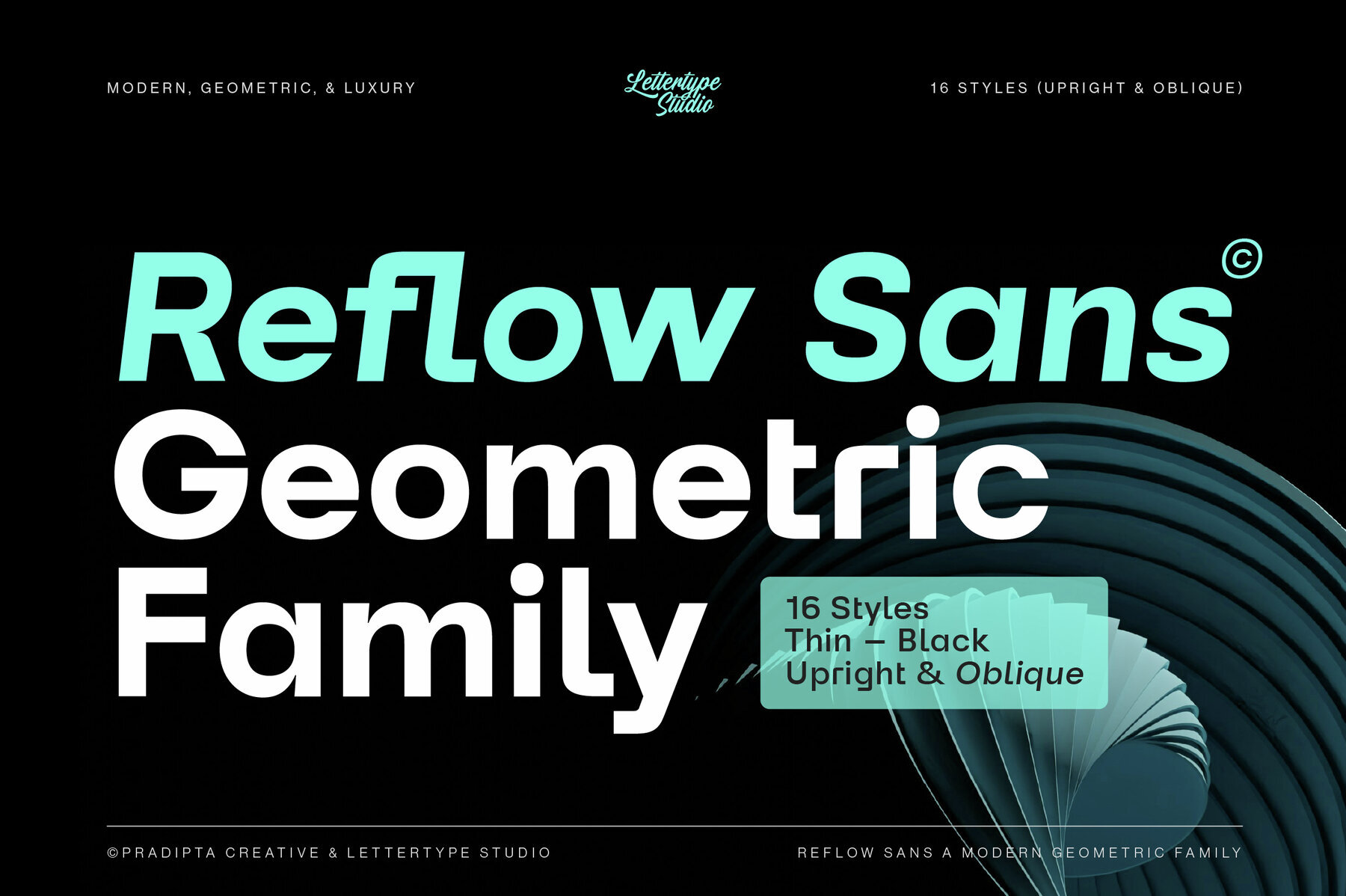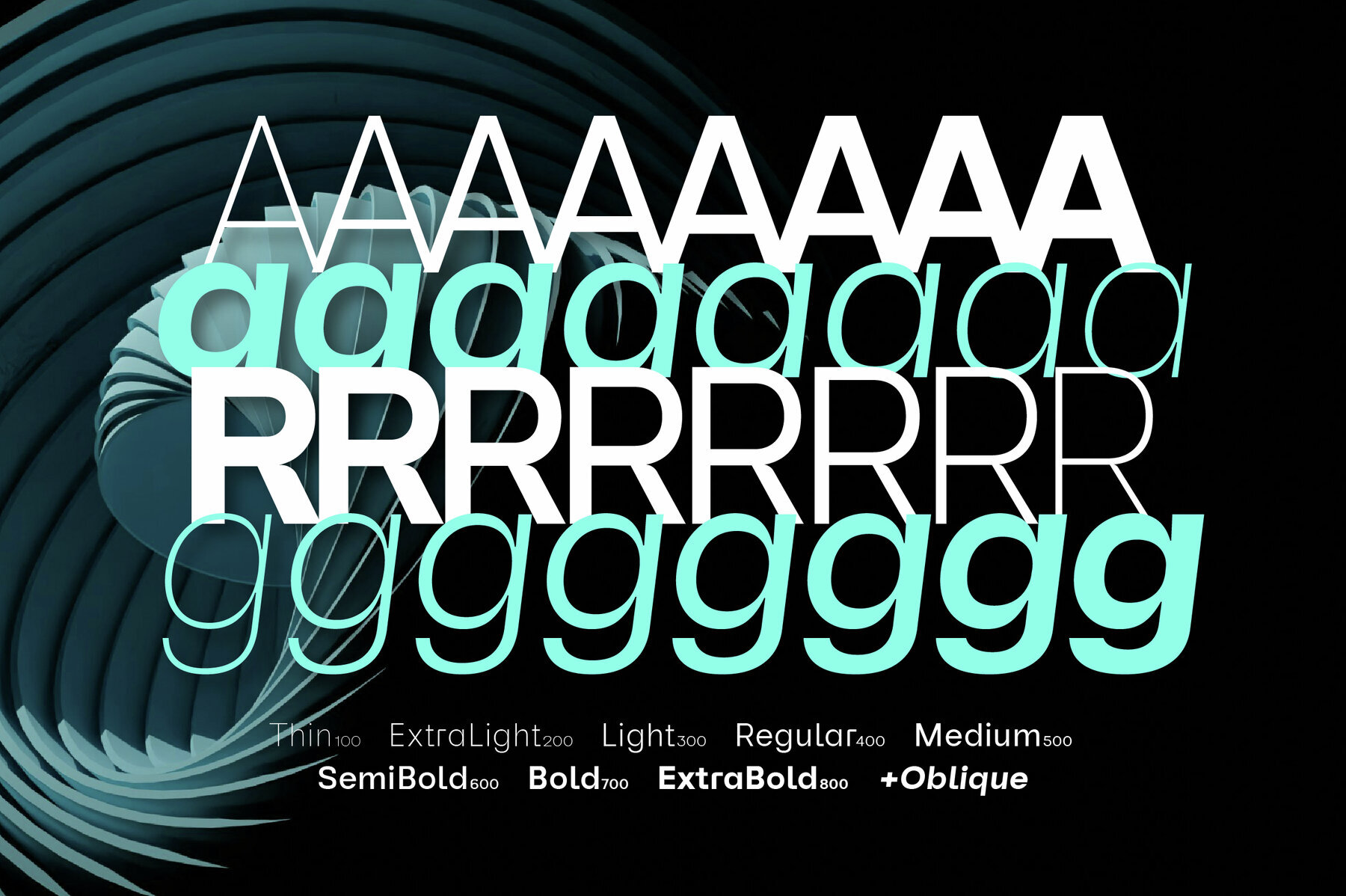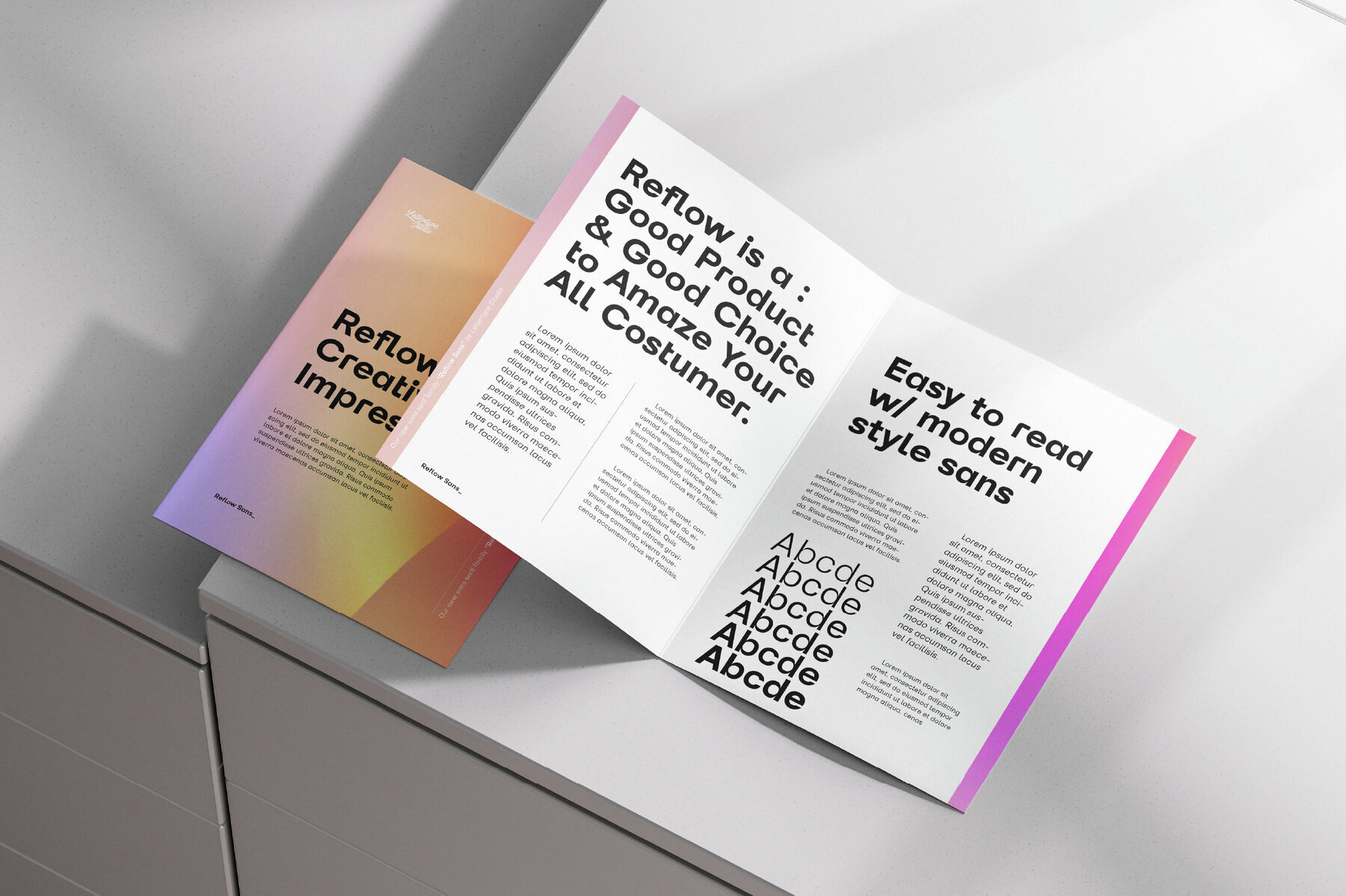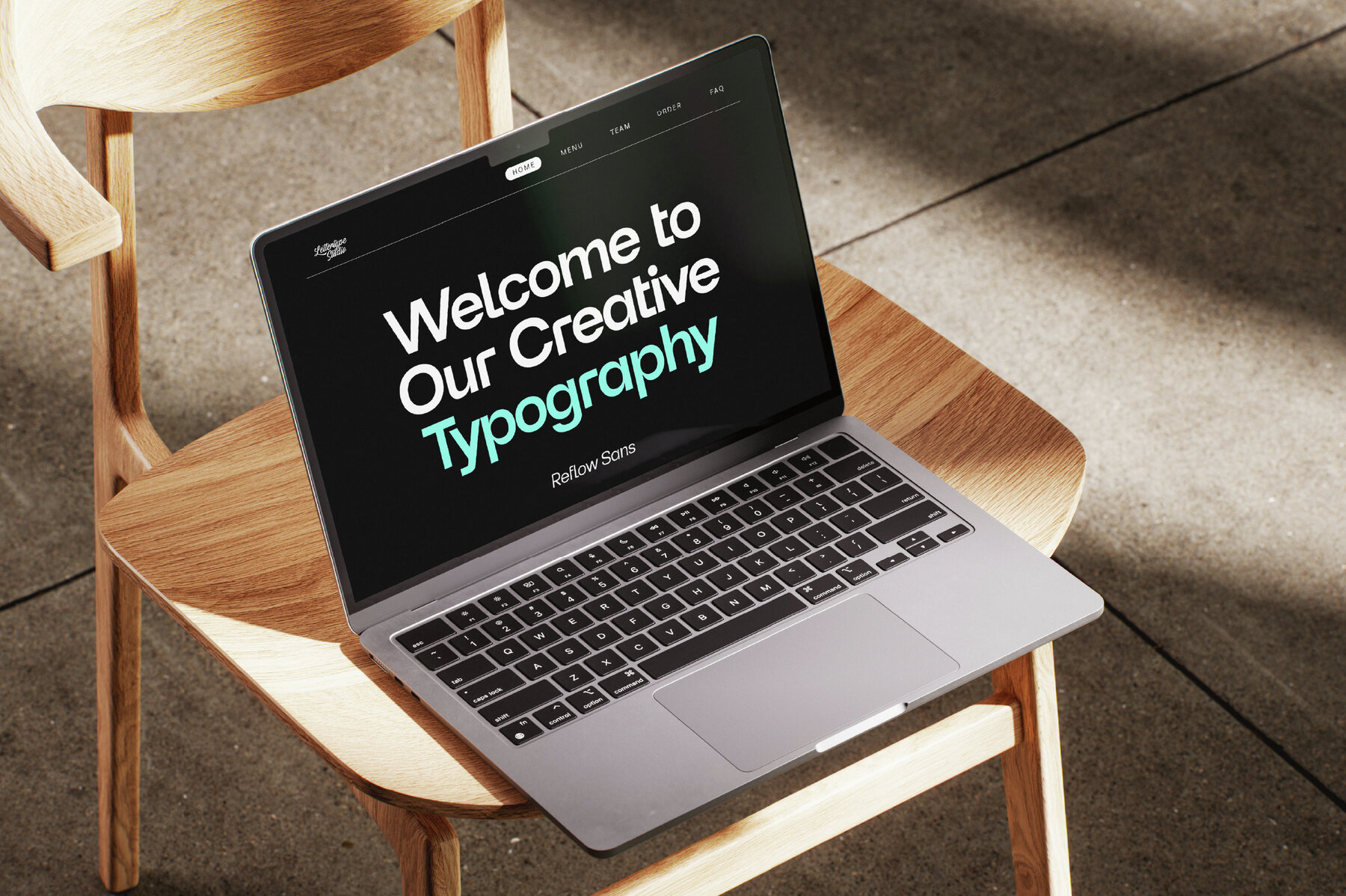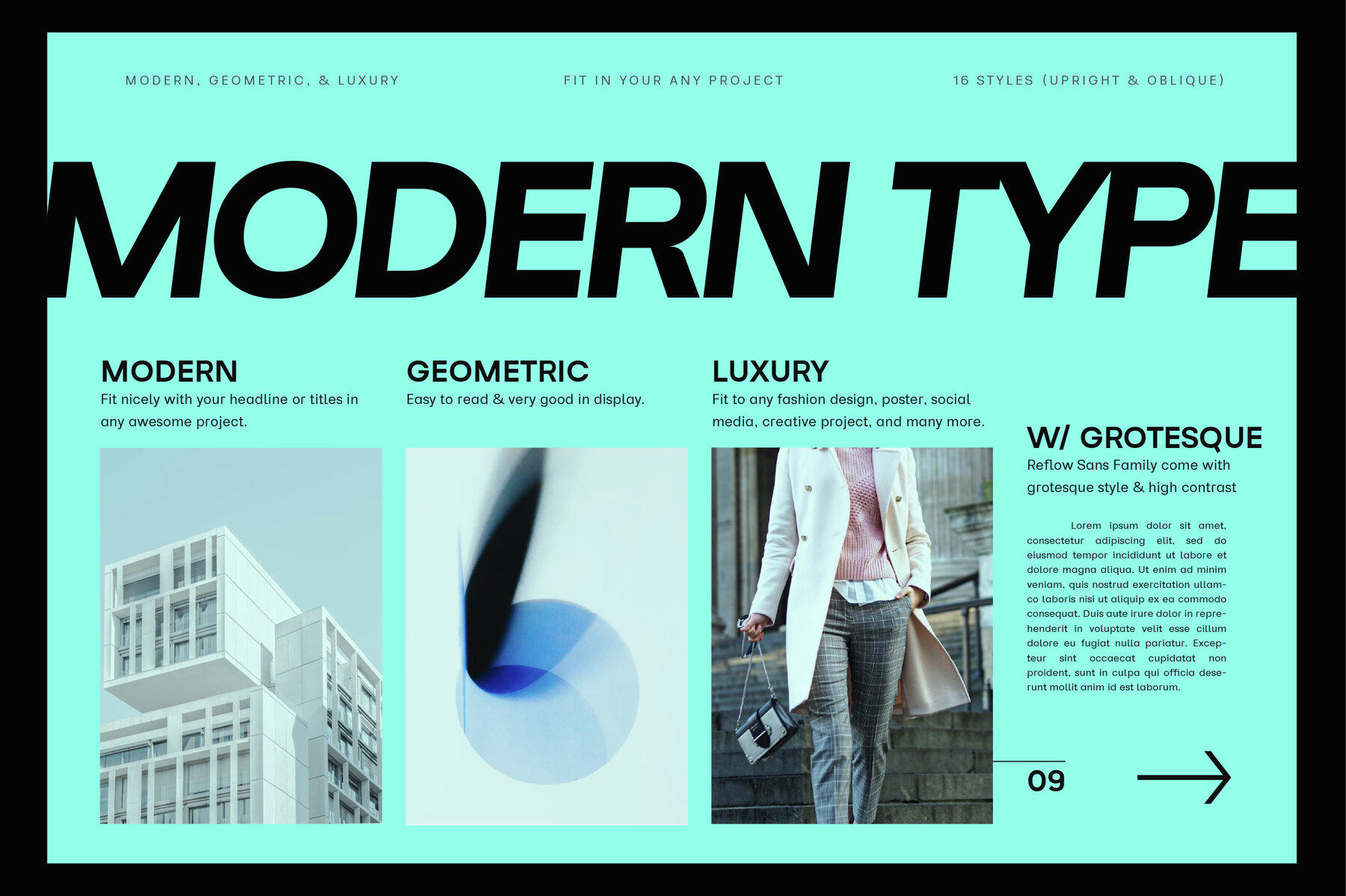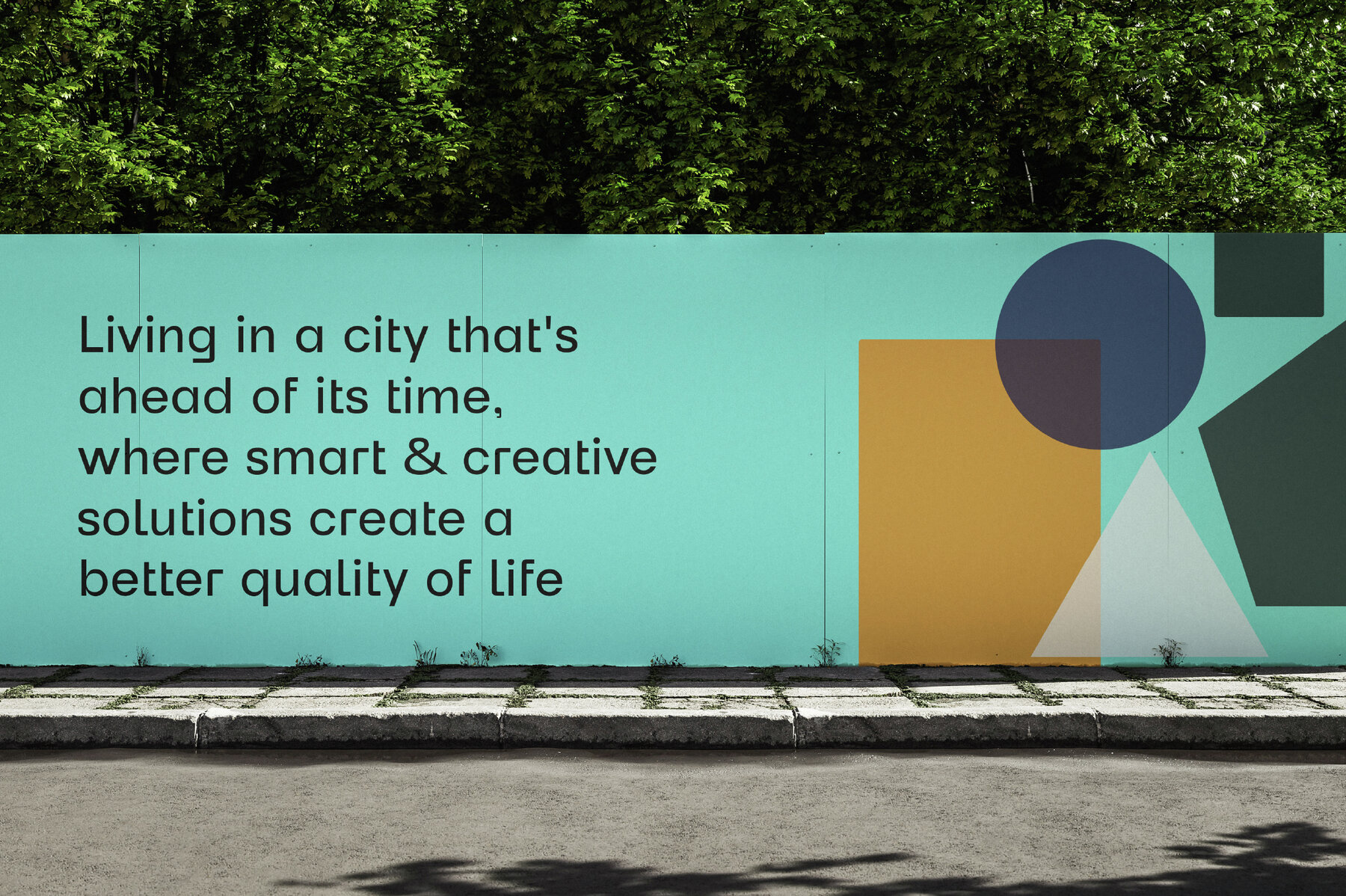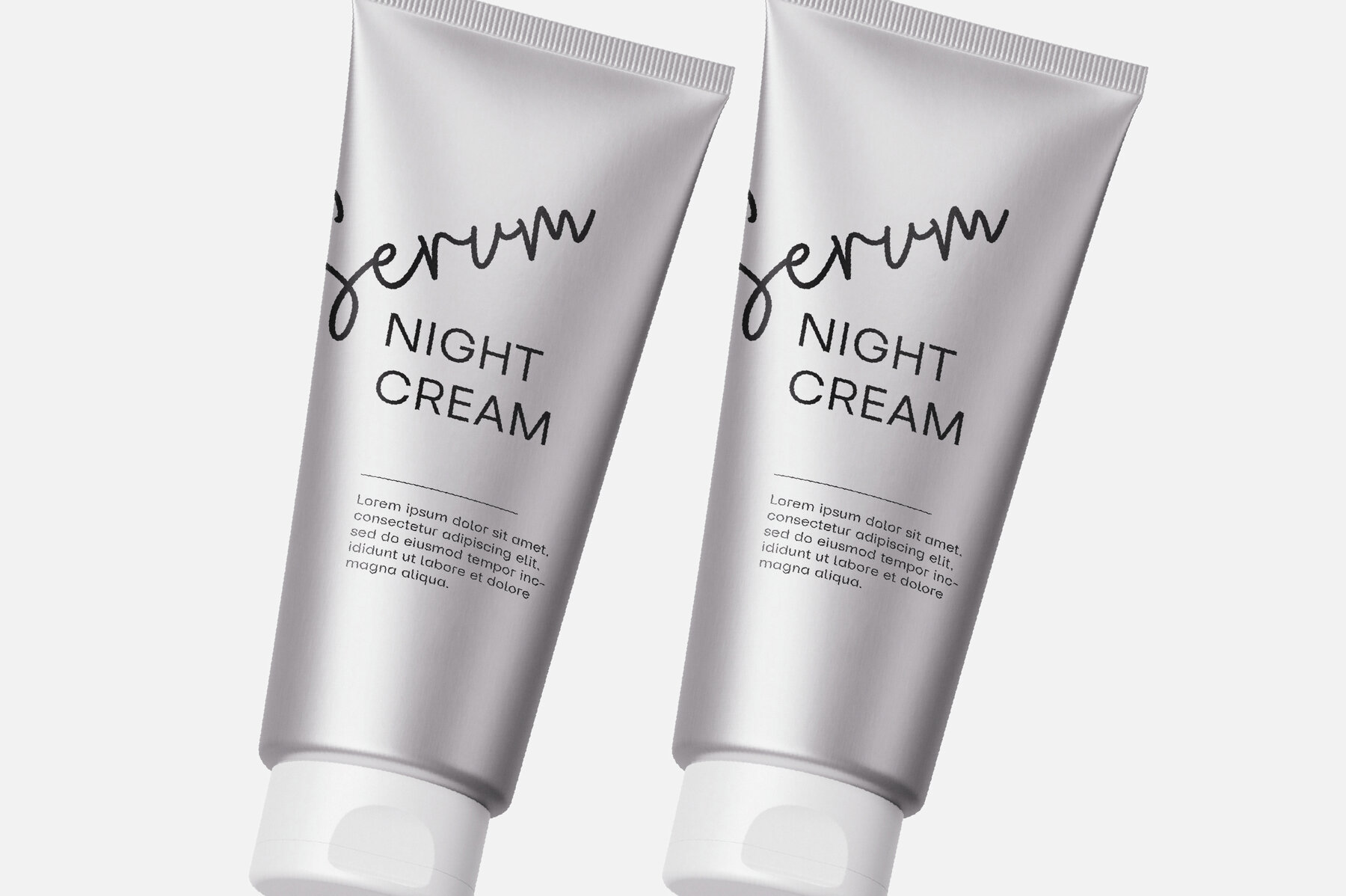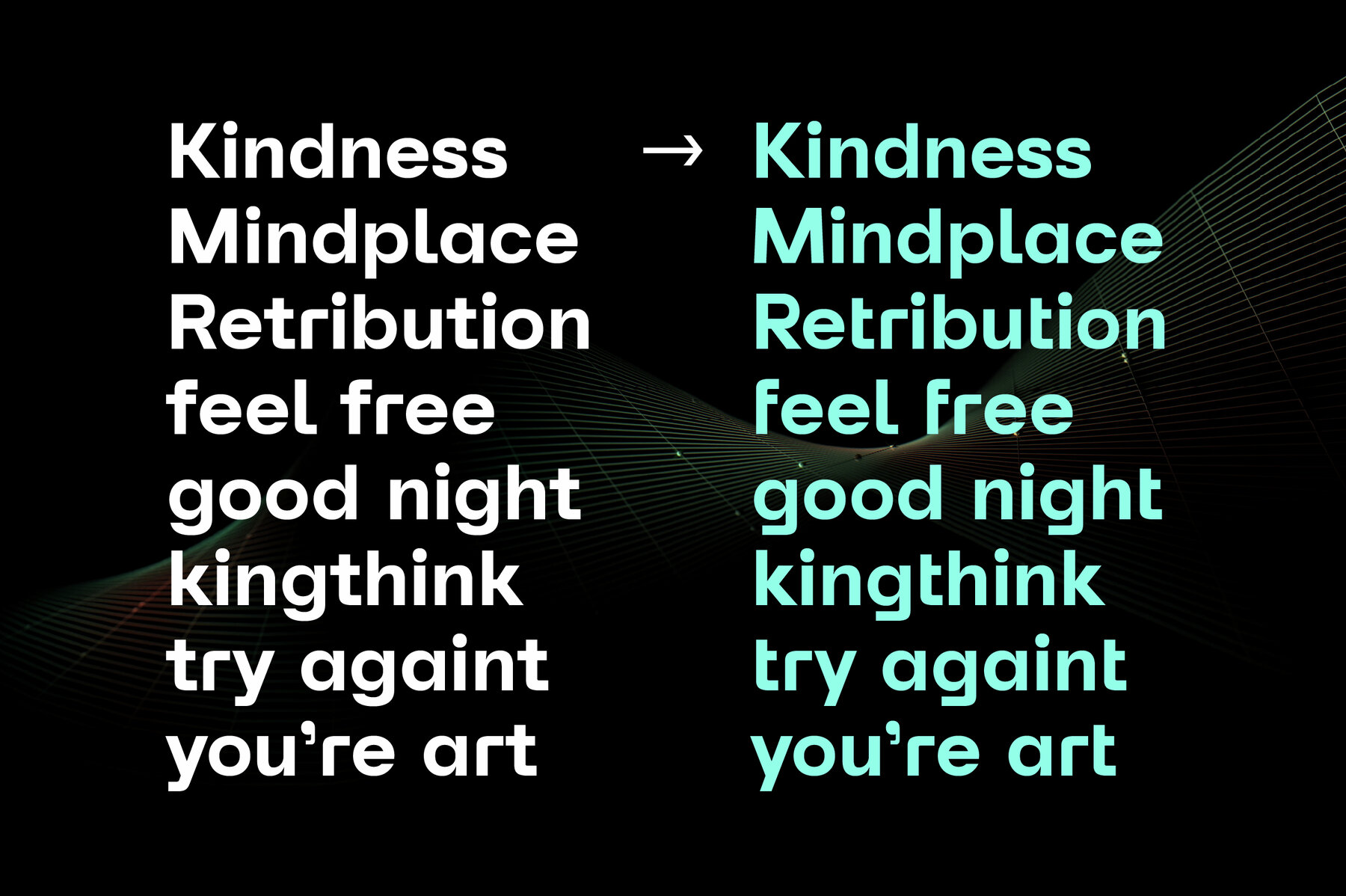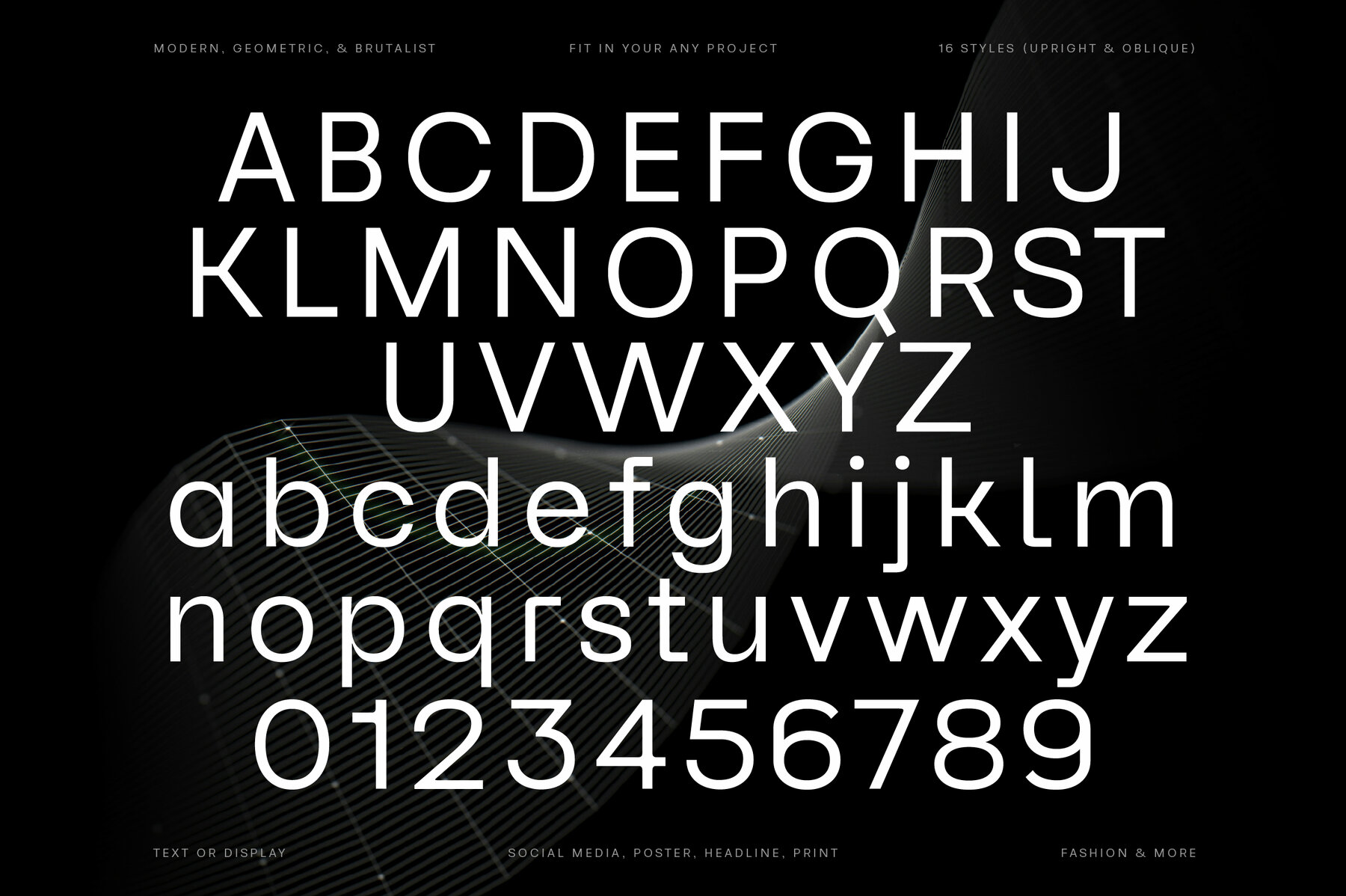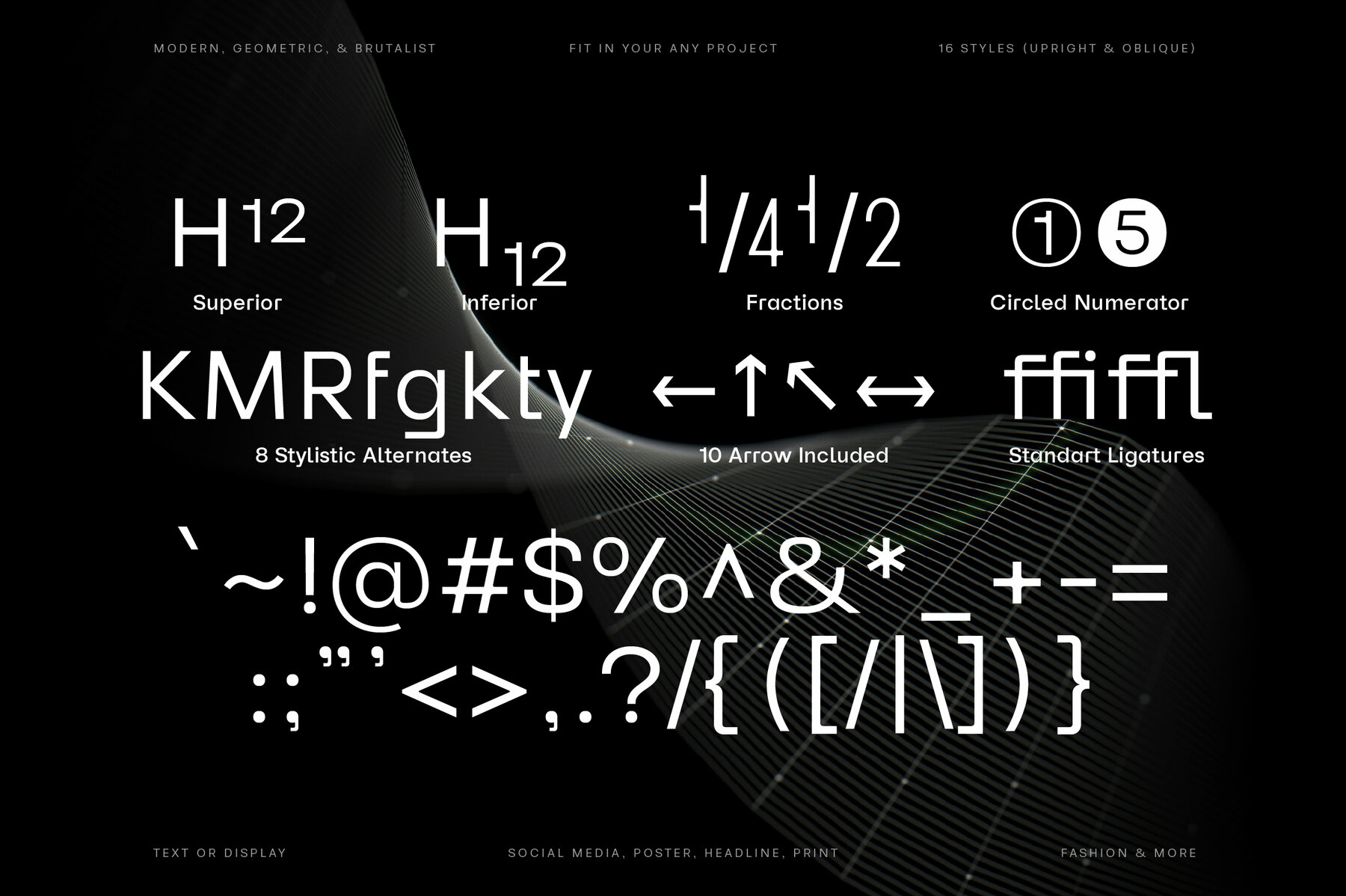
Reflow Sans Font
Reflow Sans is a modern sans-serif typeface that blends geometric structure with subtle grotesque elements. Known for its simplicity and strong visual impact, this versatile typeface stands out with refined proportions and high contrast. It's crafted for optimal readability, offering a balance between the clean, brutalist style commonly associated with geometric fonts and the warmth often found in grotesque designs. Reflow Sans is designed not only for impeccable legibility but also for its sleek, modern aesthetic appeal. Its flexibility makes it perfect for an array of projects such as fashion, print design, social media content, and branding. Suitable for UI/UX, web typography, packaging, and editorial design, it ensures your creative endeavors remain both contemporary and distinctive.Reflow Sans: Geometric Precision with Grotesque Warmth